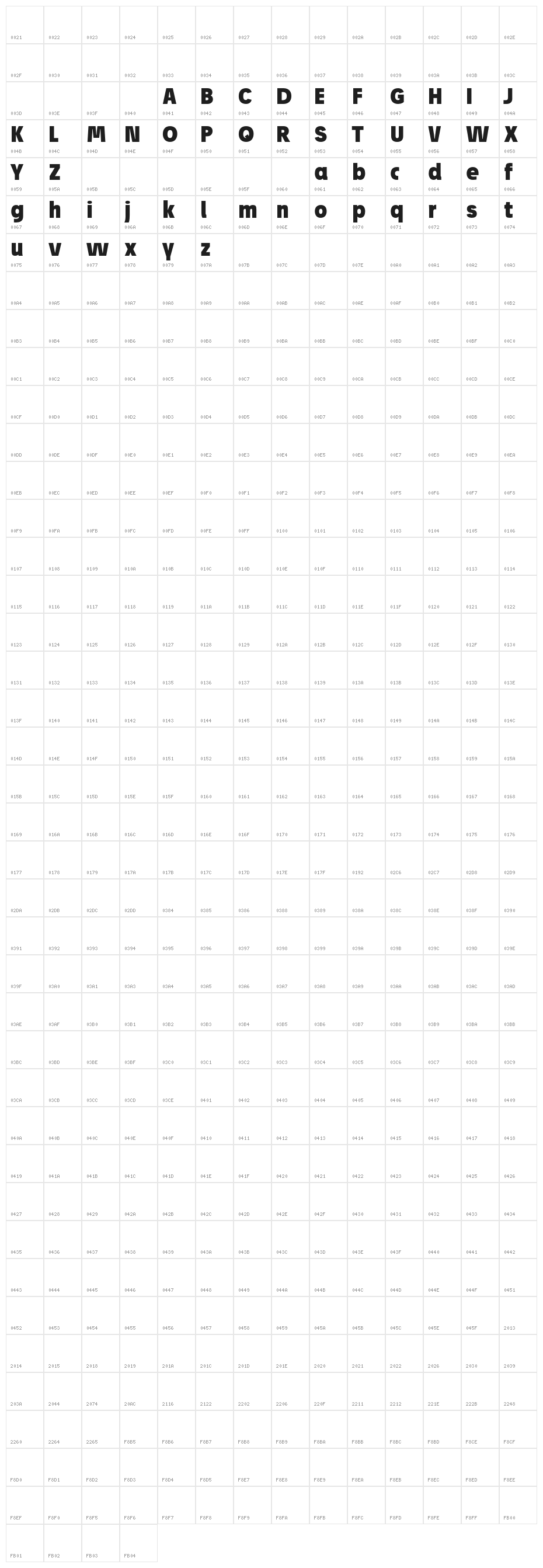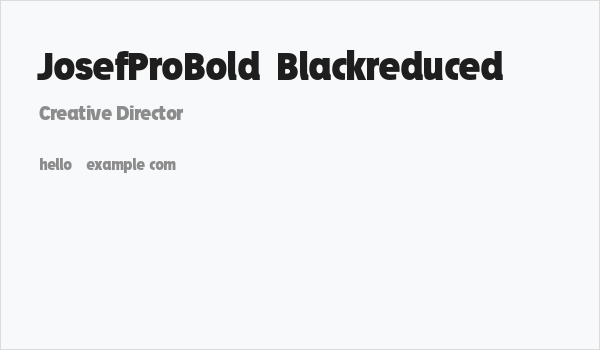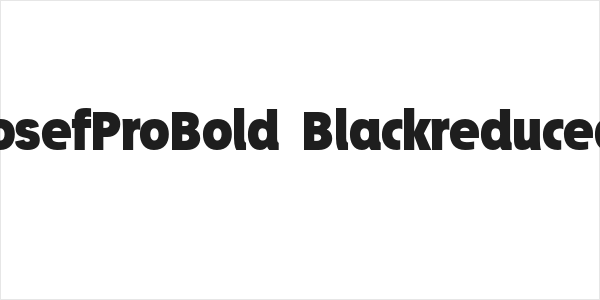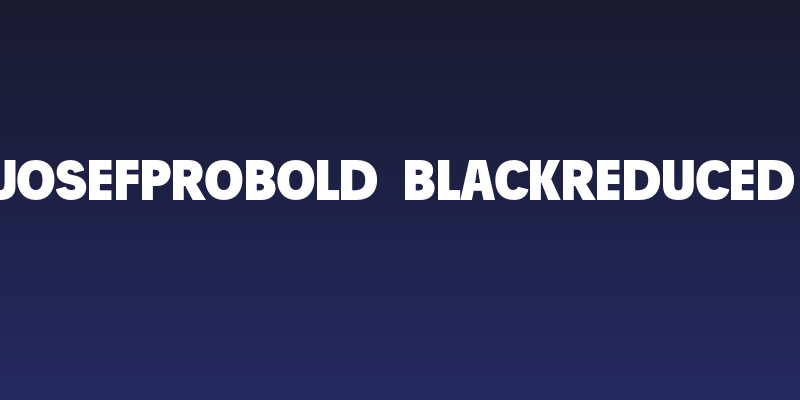
JosefProBold-Blackreduced Font
JosefProBold-Blackreduced Description
This typeface features bold, strong letterforms with a modern and assertive appearance. The characters are uniformly thick, providing a sense of stability and confidence. The uppercase and lowercase letters are well-proportioned, with a consistent stroke weight that enhances readability. The design is clean and straightforward, making it suitable for impactful headlines and attention-grabbing text. The font's boldness is complemented by its clear and precise edges, offering a professional and polished look.
| Proposed Projects | Ideal for branding, advertising, headlines, and posters where a strong visual impact is needed. |